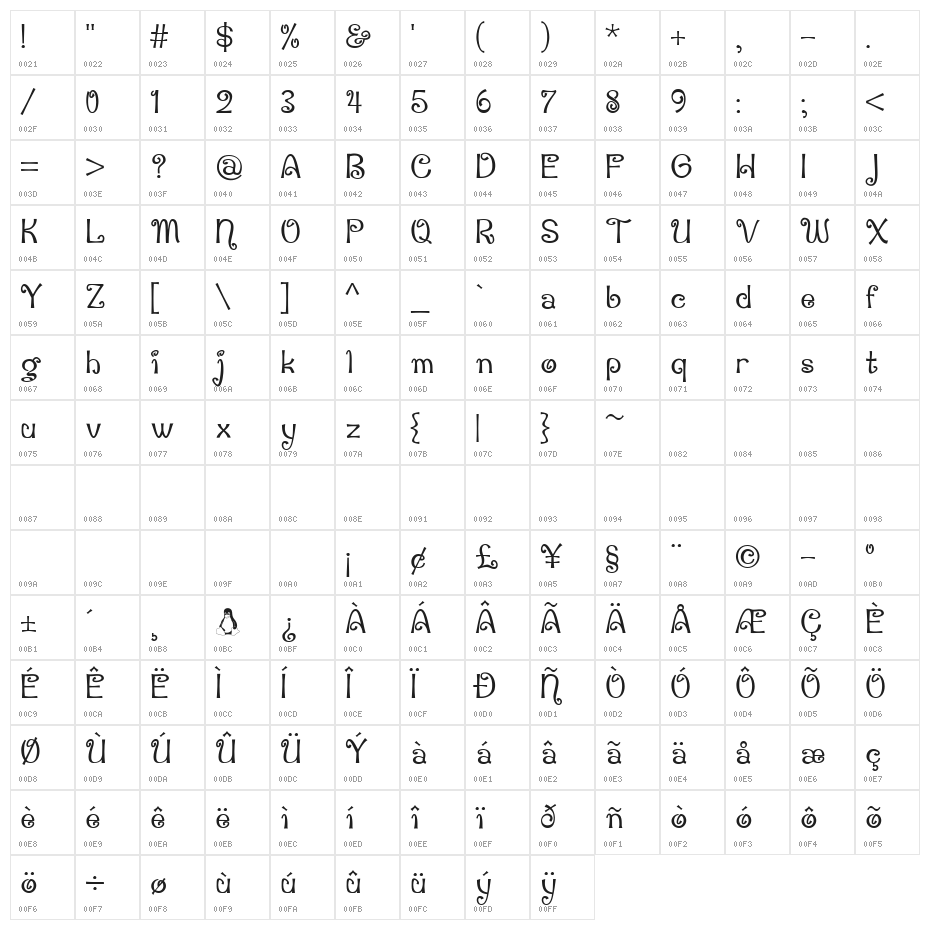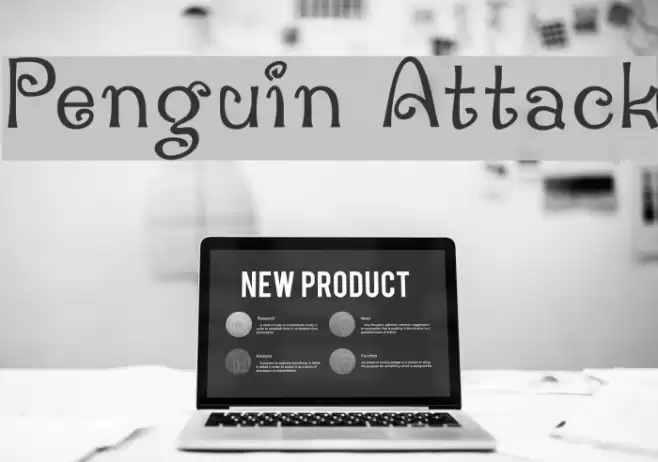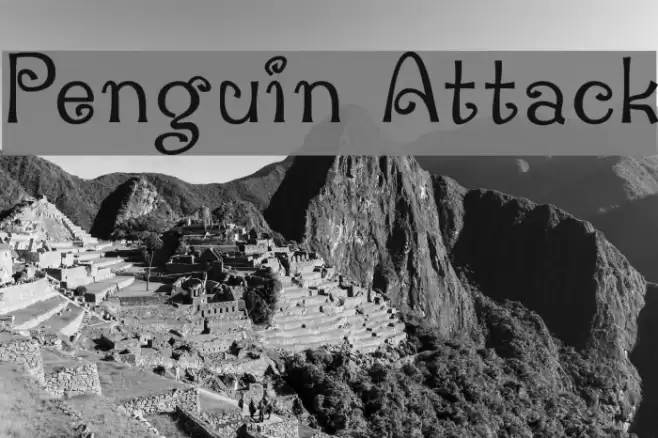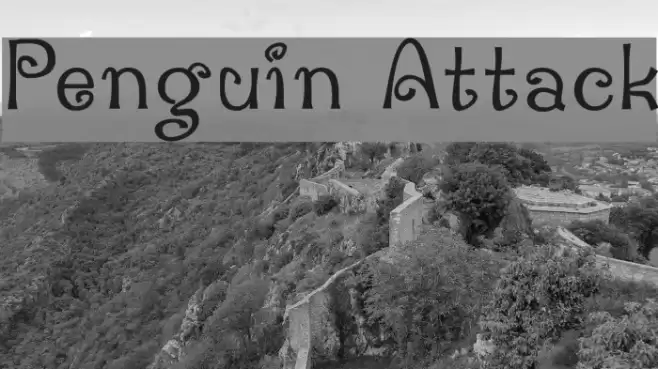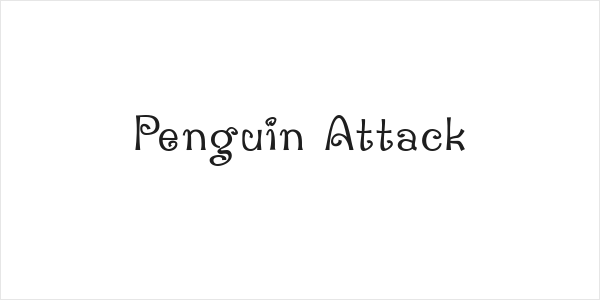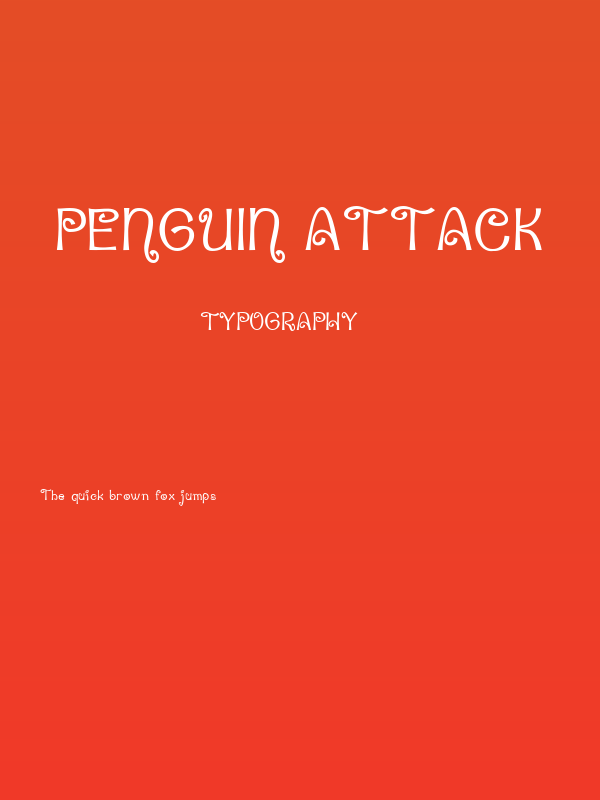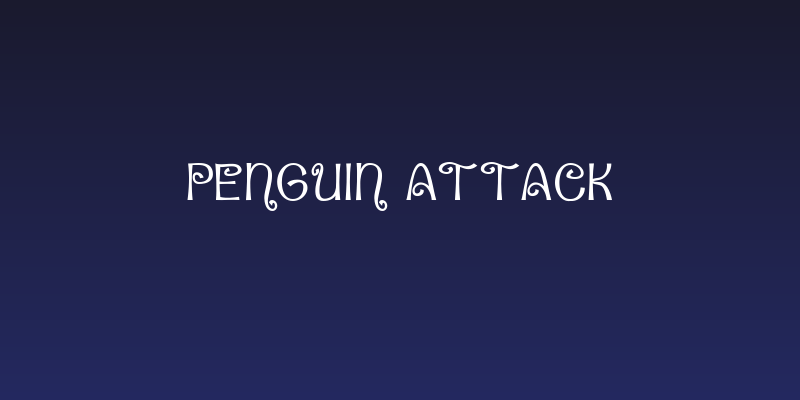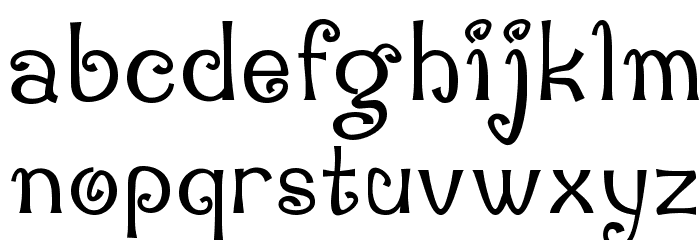
Penguin Attack Font
Penguin Attack Description
This playful and whimsical font features a unique blend of curves and loops, giving it a lively and animated appearance. The uppercase letters are bold and distinctive, with exaggerated serifs and playful swirls that add a touch of fun. The lowercase letters maintain the same whimsical style, with rounded edges and a slightly uneven baseline that enhances its quirky charm. The numerals are equally playful, with a consistent style that matches the letters. Special characters are designed with the same attention to detail, ensuring a cohesive look across all glyphs. This font is perfect for projects that require a lighthearted and fun aesthetic.
| Overall Style | Whimsical |